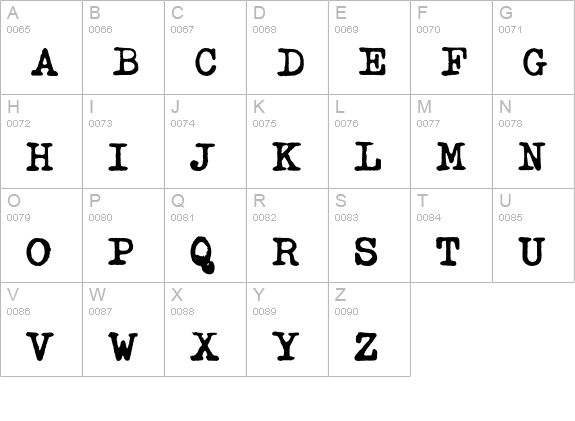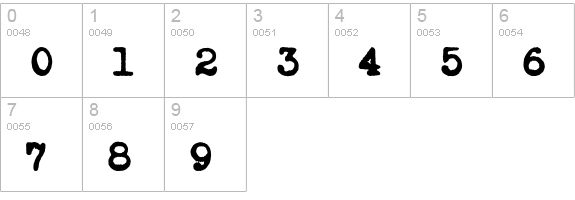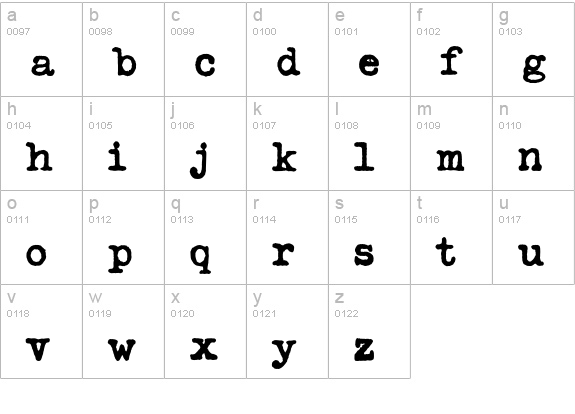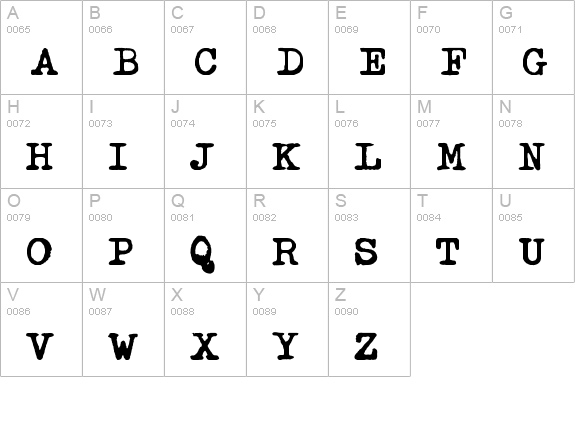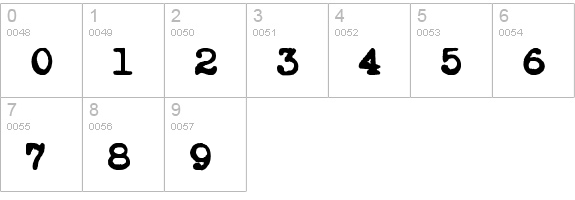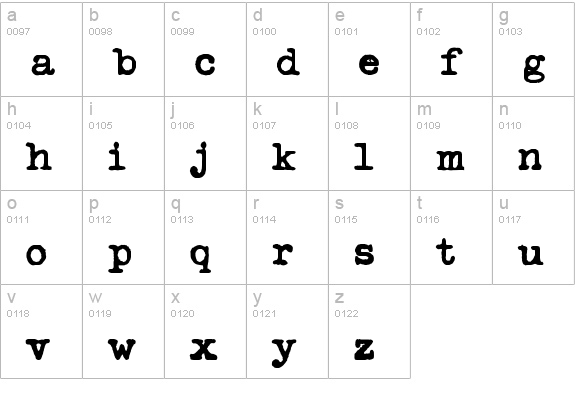
Typeka-Bold Font Details
Typeka-Bold is a strong, high-contrast variant in the Typeka typeface family \xE2\x80\x94 well suited to headlines, attention-grabbing titles, and strong calls-to-action.
Typeka-Bold is a striking and versatile font that exudes confidence and power. With its bold and strong letterforms, this typeface commands attention and leaves a lasting impression. Designed with meticulous attention to detail, Typeka-Bold is perfect for headlines, titles, and any design project that requires a bold and impactful look. This font is not only visually appealing but also incredibly practical. Its legibility ensures that your message is easily conveyed to your audience, even from a distance. Whether you're designing a poster, a logo, or a website, Typeka-Bold will elevate your project and make it stand out. One of the best things about Typeka-Bold is that it is free to download. That's right, you can enhance your designs with this stunning font without needing to spend a dime. Simply head over to FontsMarket.com, where Typeka-Bold is freely available for download. This means that you can add this remarkable font to your collection and use it in any personal or commercial project, without any restrictions. So why wait? Experience the power and beauty of Typeka-Bold today. Download it for free from FontsMarket.com and take your designs to the next level.